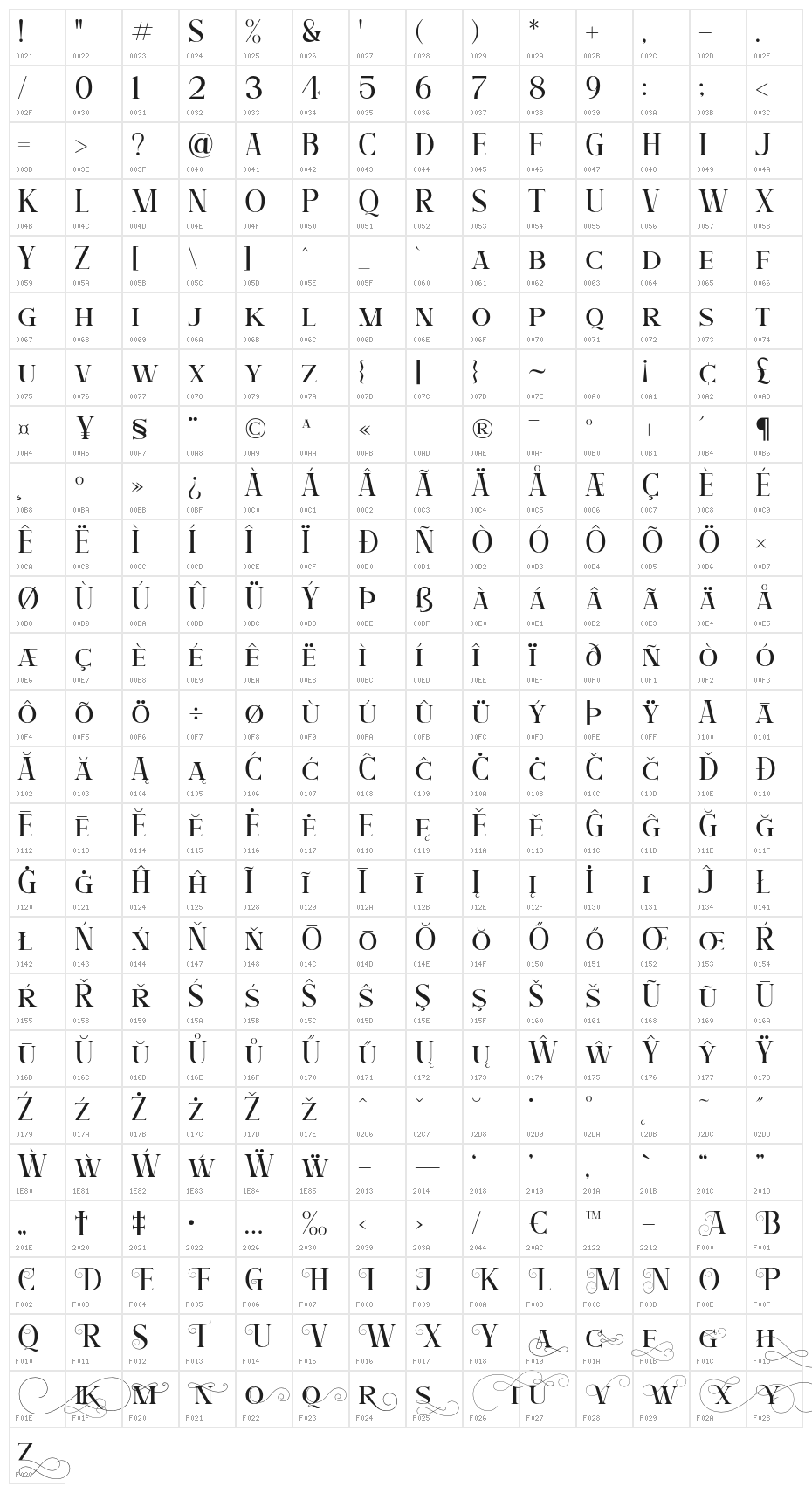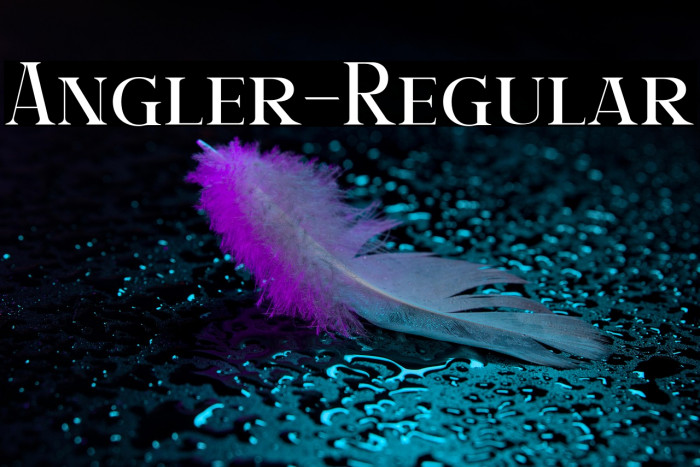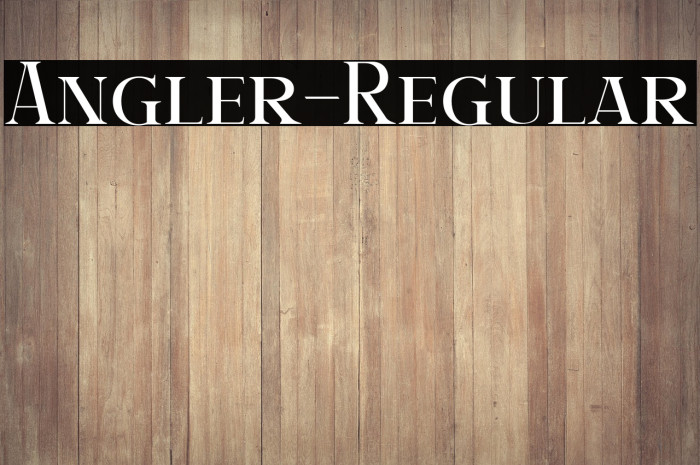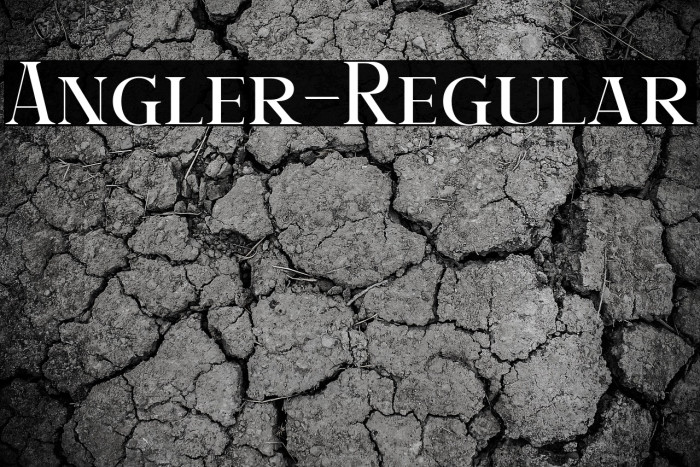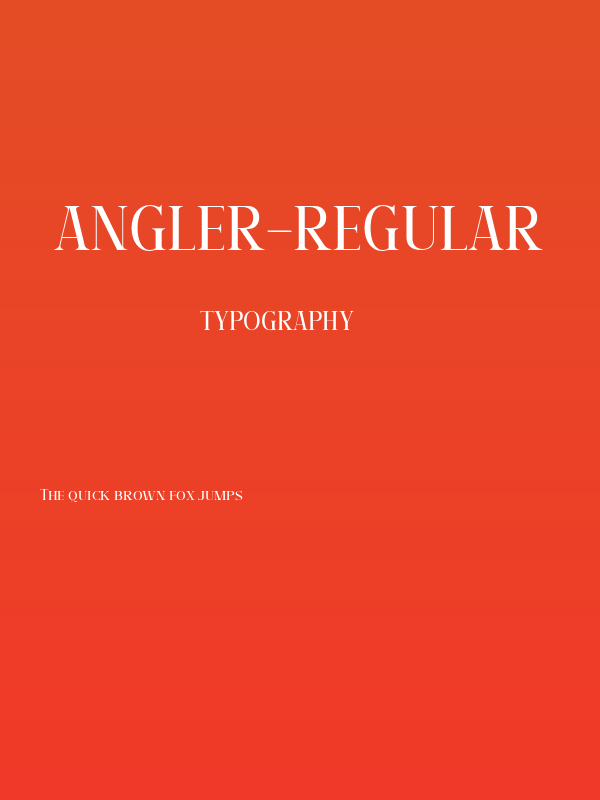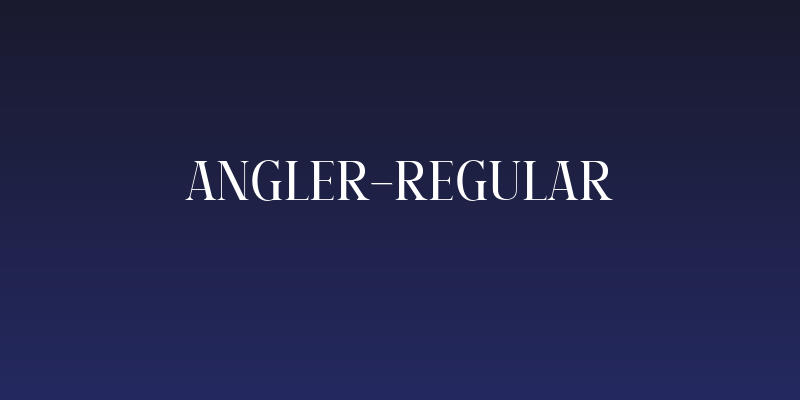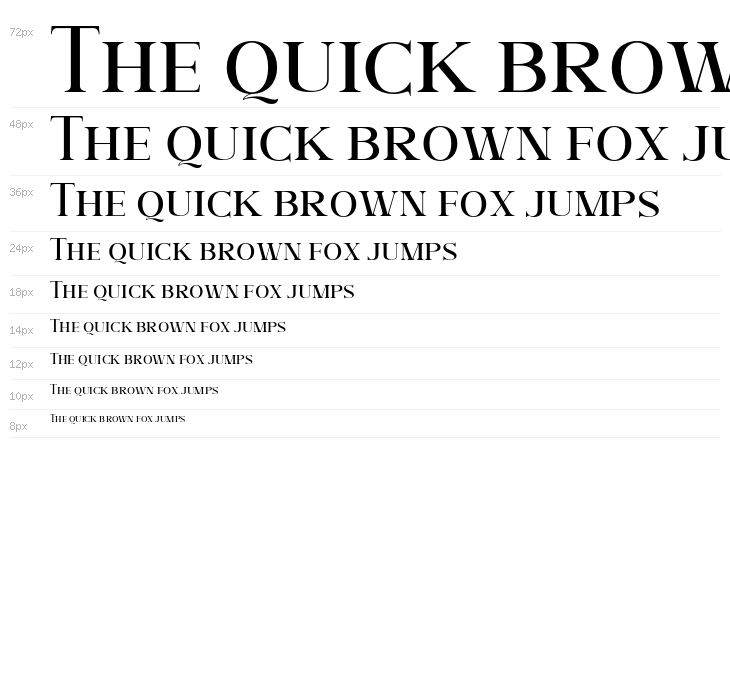
Angler-Regular Font
Angler-Regular Description
This font exhibits a classic serif style with elegant and sharp serifs that give it a sophisticated and timeless appearance. The characters are well-proportioned, with a moderate contrast between thick and thin strokes, enhancing readability while maintaining a refined aesthetic. The uppercase letters are bold and commanding, while the lowercase letters are more delicate, providing a nice balance. The numerals are clear and distinct, making them suitable for both formal and modern contexts. Special characters are included, offering versatility for various design needs.
WidthNormal
Character SpacingMonospaced
ContrastMedium
Overall StyleClassic
Use CaseHeadlines, Body text, Logos
Proposed ProjectsIdeal for editorial design, book covers, formal invitations, and branding projects that require a touch of elegance and tradition.